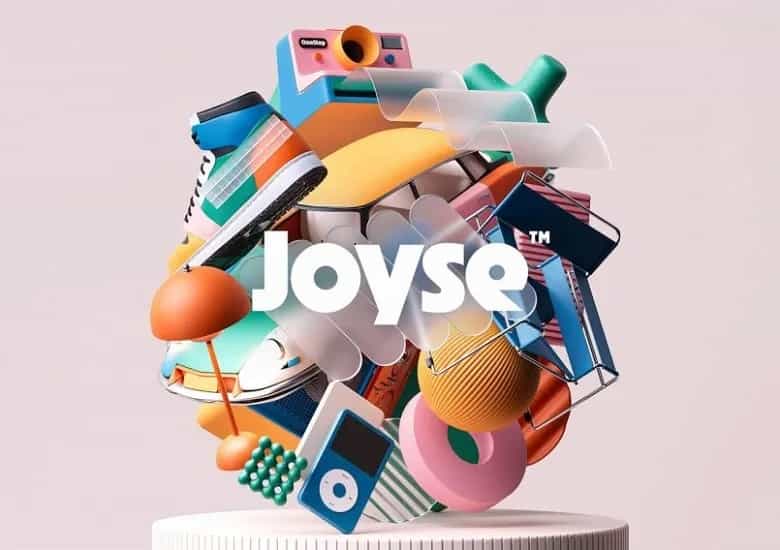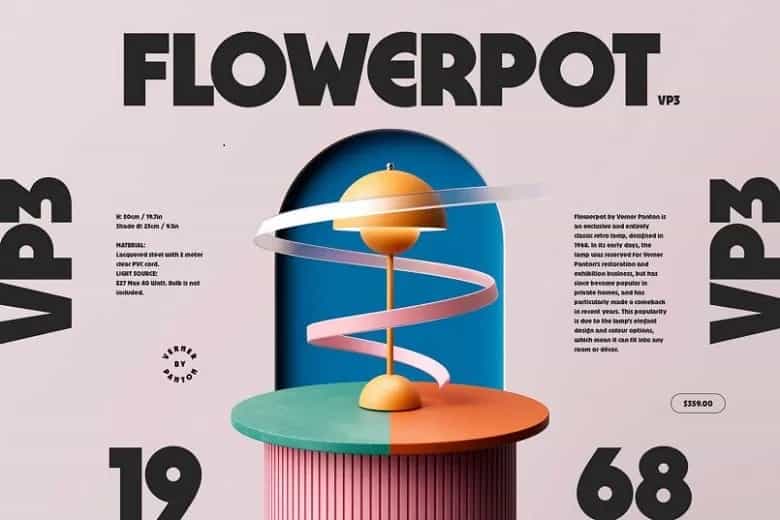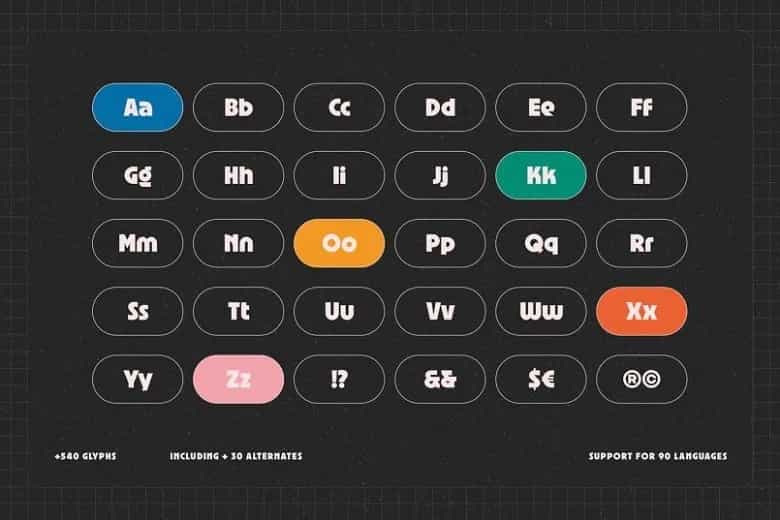
Joyse is a sans serif typeface for display use that reflects the atmosphere of mid-century modernism while having some contemporary features as well. Best suited for creating strict and uncompromising logos, striking posters, covers and recognizing number of magazines, and any visual identification that opens with the purpose to stay inimitable. This font has over 540 glyphs, 30 of which are additional, plus it supports 90 different languages.